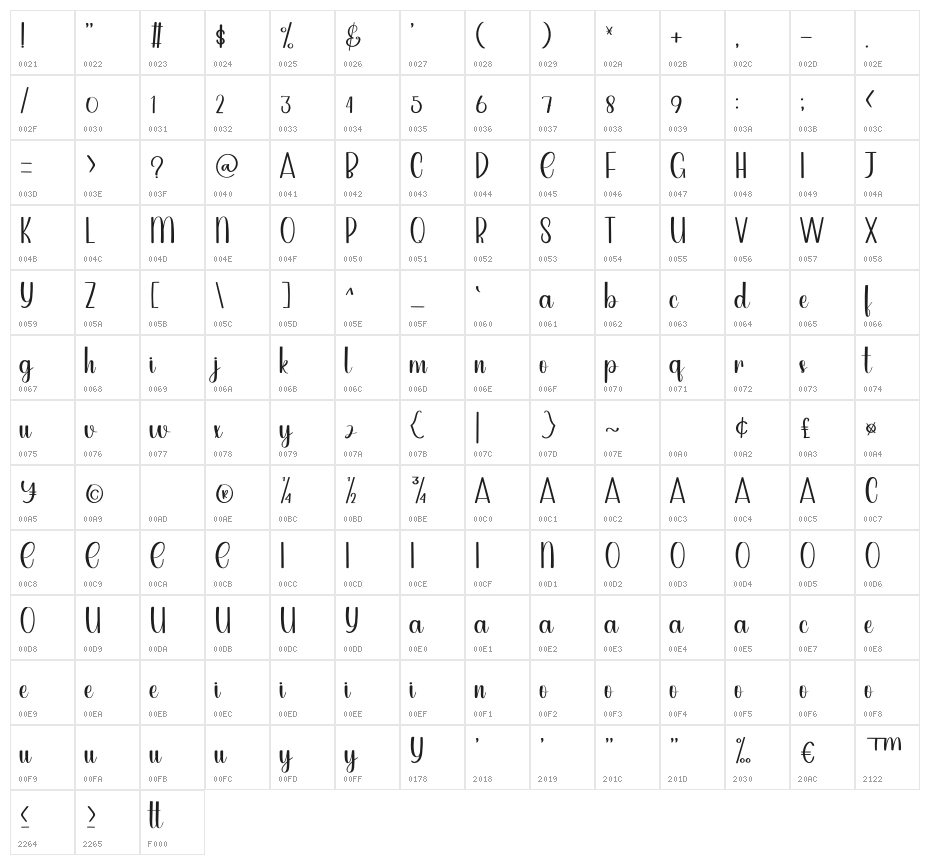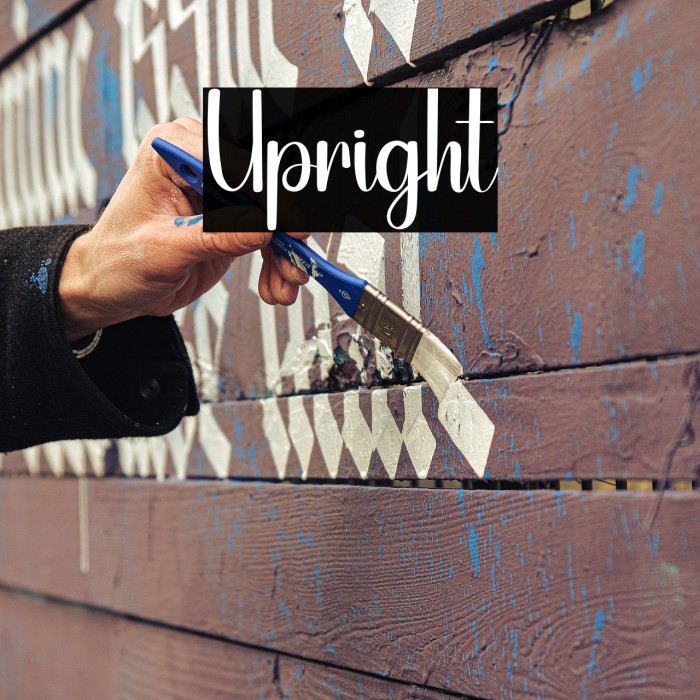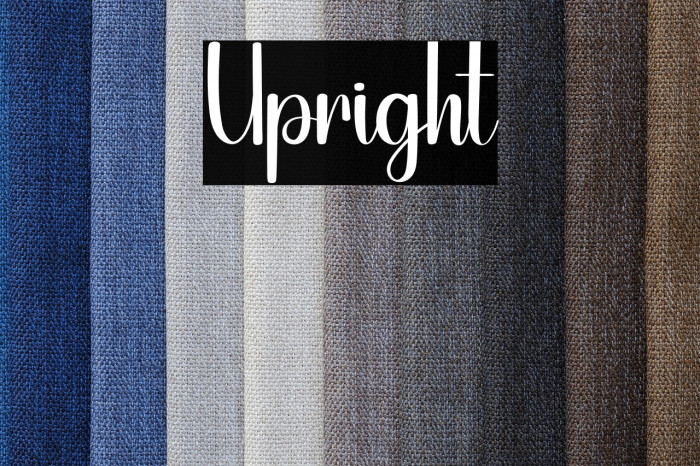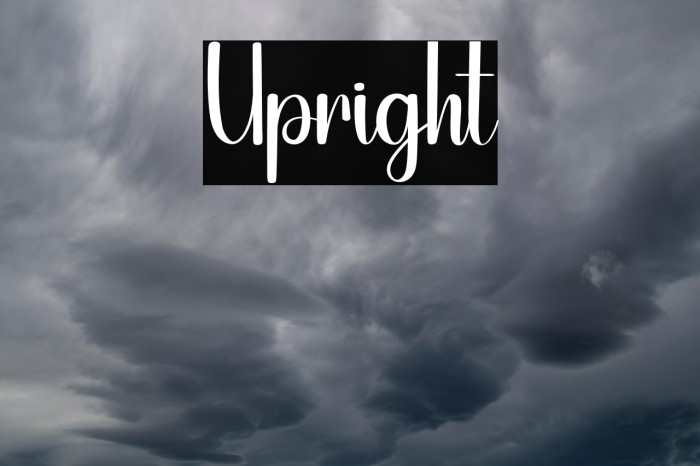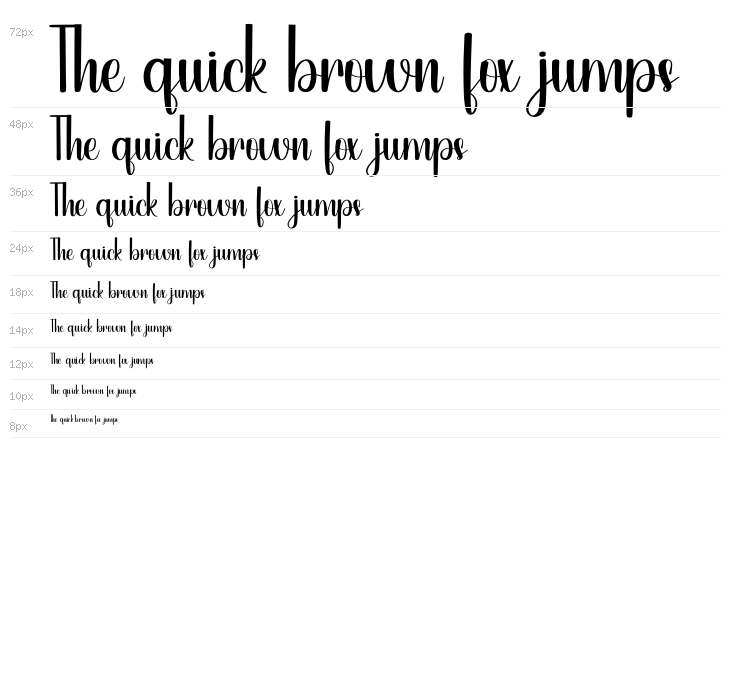
Upright Font
Upright Description
This font features a playful and artistic style, combining elements of both script and decorative display. The uppercase letters are tall and narrow, with a slight slant that adds a dynamic feel. The lowercase letters exhibit a more cursive, handwritten quality, with elegant loops and curves that enhance its whimsical character. The numerals are consistent with the uppercase style, maintaining a clean and legible appearance. Special characters are designed to complement the overall aesthetic, ensuring a cohesive look across all text elements. This font's unique blend of styles makes it versatile for various creative applications.
| Width | Condensed |
| Use Case | Logos, Headlines, Creative projects |
| Proposed Projects | Ideal for greeting cards, invitations, branding, and creative posters. |